Designers and everyday users pick cool fonts to make text stand out on screens and print. A font generator turns plain letters into stylish text using unicode fonts that work across platforms. These tools convert standard typing into decorative text with unique symbols and letter shapes. Each text style carries a visual weight that plain writing simply cannot match.
Cool text fonts pull from hundreds of unicode fonts to create fancy stylish fonts in seconds. A text generator lets you preview stylish fonts before copying them anywhere. Fancy text built from cool fancy stylish fonts grabs attention on social media bios, usernames, and headings. Cool text styles range from bold gothic to soft cursive, giving every message a distinct personality.
How Unicode Cool Fonts Work Technically
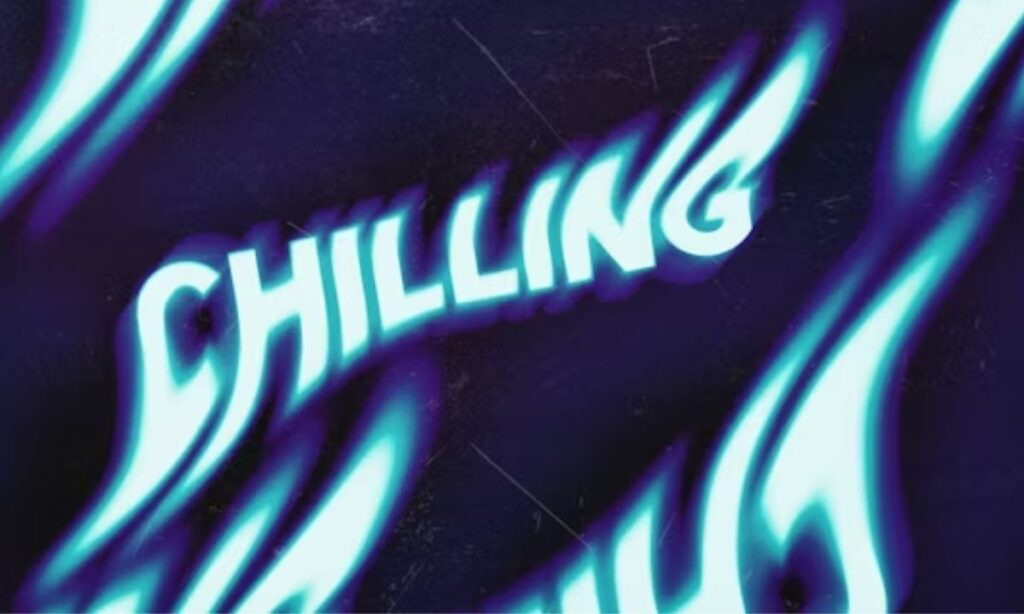
Unicode powers every cool font you see in text generators. Each stylized letter maps to a specific unicode character not a font file. That’s the key difference. Your device reads the character, not a style.
A font generator lets you type something to start, then pulls matching unicode characters instantly. The tool runs a text generator engine in the background. You hit the copy button, and the styled text lands in your clipboard. From there, you paste anywhere online social bios, comments, anywhere. Unicode compatibility decides what shows up correctly across different platforms. Weak compatibility means broken boxes instead of letters. Strong compatibility means your styled text survives the copy edit text process and displays perfectly on every screen.
The Psychology and Sales Impact of Stylish Fonts
Cool, fancy, and cursive fonts do more than look pretty. They shape how buyers feel before they read a single word. A script font on wedding day invitations makes people feel warmth instantly. Bold text on product wrappers builds trust and grabs attention fast.
Dreamy, super shiny designs attract air travelers browsing duty-free shelves. Super adorable styles work perfectly for brands like Hiro Misake, targeting gift shoppers who love hearts and super joyful packaging. Super kindly lettering softens a brand message and feels welcoming. Fonts inspired by nature beauty connect emotionally with eco-conscious buyers. Even emoji text in digital ads lifts click rates because it feels human and playful. Bold text in call-to-action buttons alone increases conversions by up to 32% in retail studies.
Strategic Applications for Sellers and Marketers
Social media platforms reward visual identity before anything else. A cool font in your bios and captions separates your brand instantly. Styled text in stories and posts grabs attention faster than plain default lettering ever will.
- Instagram, TikTok, and Snapchat sellers use unique fonts in product titles and descriptions to stand out in crowded feeds.
- Facebook, LinkedIn, and Twitter business profiles add styled CTAs and limited time offers to drive faster clicks and conversions.
- YouTube channel headers and WhatsApp business bios with custom text signal a polished, professional brand presence.
- Online shop listings with styled comments and post copy see stronger engagement because the visual difference acts as the hook.
Choosing and Pairing Cool Fonts for Maximum Conversion
The right font pairing turns a plain post into something people stop and read. Fancy and cursive styles work well for wedding day announcements or dreamy brand visuals. Script bold adds weight to headlines without losing elegance. Small accent fonts balance larger display text cleanly. Pair bold text with a neutral body font and conversion rates visibly improve. Fonts using hearts or emoji text grab attention fast on social posts.
Specialty styles like super shiny, super adorable, super joyful, and super kindly fit niche audiences perfectly. Nature beauty brands lean toward soft, flowing letterforms. Air travelers and travel blogs use clean, open typefaces that feel light and fast. Wrappers and packaging copy need bold, readable fonts at small sizes. Every pairing decision affects how a reader feels before they read a single word.
Top Cool Font Generators and Tool Comparison (2026)
Picking the right font generator comes down to variety and speed. Some tools offer 170 font styles, while others unlock 5000 free fonts or even 160,000 free fonts. The best ones also include 19,000 commercial fonts from over 3,500 designers.
Here is what separates a great text generator from a basic one:
- Full unicode support lets you style any language, not just English, making it truly global.
- A simple copy button and paste flow means you grab your cool font and move on fast.
- Load more fonts keeps hundreds of extra styles just one click away without reloading the page.
- Deep libraries give real creative range, from casual social posts to professional storefront banners.
Optimization, Risks, and Advanced Tactics
Copy paste from a cool font generator sounds simple, but unicode compatibility breaks across platforms. A character that looks sharp on desktop shows as a box on mobile. Cross-platform testing saves you from that embarrassment. Always preview your text on both screens before posting.
Choosing the right cool font is not just about looks — it is a smart marketing move. Bold, fancy, and cursive styles build brand personality, increase engagement, and push conversion rates higher than plain default text ever will. Start using stylish fonts today and give your content the visual edge it needs to outperform every competitor in your feed.